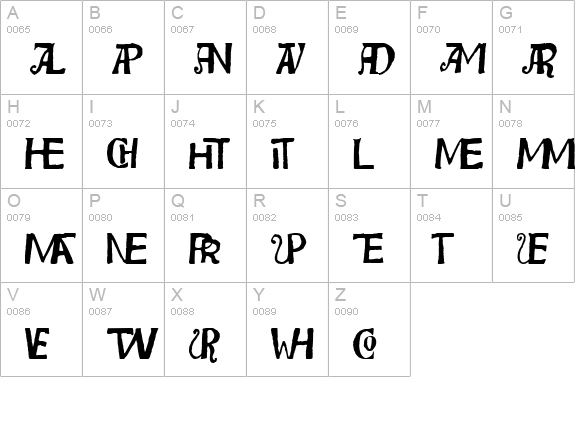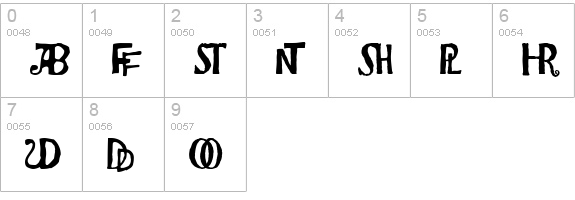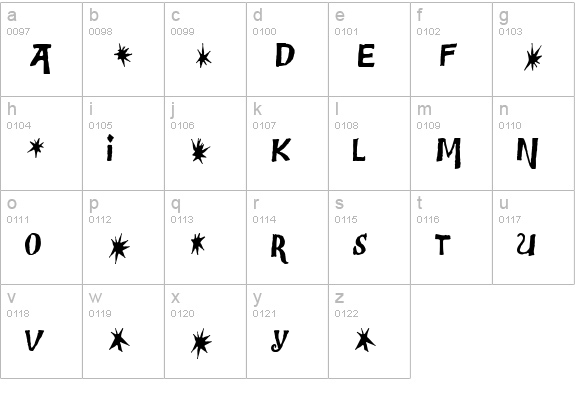
Bensgothic Ligatures Font Details
Bensgothic Ligatures font is a stunning display typeface that exudes elegance and sophistication. With its intricate and ornate ligatures, this font is perfect for adding a touch of Gothic charm to your designs. The flowing curves and sharp angles of Bensgothic Ligatures create a visually striking look that will captivate your audience. This font is not only visually appealing but also highly versatile, making it suitable for a wide range of design projects, from branding to editorial design. Whether you're creating a logo, poster, or website, Bensgothic Ligatures will add a touch of drama and flair to your work. And the best part? Bensgothic Ligatures font is completely free to download at FontsMarket.com. So go ahead and elevate your designs with this exquisite font today!